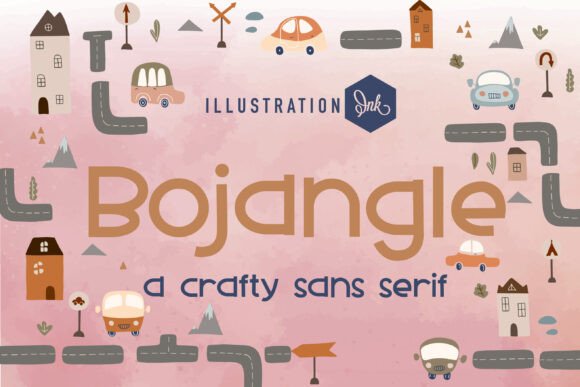
Bojangle Font: A Hand-Crafted Sans Serif for Unique Designs
The Bojangle Font is a unique, hand-crafted sans serif font that has gained popularity among designers and artists. This font is characterized by its squatty and wide letterforms, making it perfect for a variety of design projects. In this article, we’ll explore the features of the Bojangle Font, its uses, and the benefits of using hand-crafted fonts in your designs.
What is Bojangle Font?
The Bojangle Font is a hand-crafted sans serif font that is designed to look like it was written by hand. It features squatty and wide letterforms, giving it a unique and playful appearance. The font comes in two versions: a regular version and a light version, allowing designers to choose the one that best suits their needs.
Hand-crafted fonts like Bojangle are becoming increasingly popular among designers, as they offer a unique and personalized touch to designs. These fonts are often used for invitations, greeting cards, and other items where a personal touch is desired.
What are Hand-Crafted Fonts?
Hand-crafted fonts, also known as handwritten fonts, are fonts that are designed to look like they were written by hand. These fonts can be either formal or informal, and they can be used for a variety of purposes. Hand-crafted fonts are often used for creative projects, such as:
- Invitations and greeting cards
- Logos and branding materials
- Posters and flyers
- Social media graphics
- Packaging and product labels
Hand-crafted fonts offer a unique and personalized touch to designs, making them stand out from the crowd. They can add a touch of warmth and personality to a design, making it more engaging and memorable.
Benefits of Using Hand-Crafted Fonts
There are several benefits to using hand-crafted fonts in your designs. Some of the benefits include:
- Uniqueness: Hand-crafted fonts offer a unique and personalized touch to designs, making them stand out from the crowd.
- Warmth and personality: Hand-crafted fonts can add a touch of warmth and personality to a design, making it more engaging and memorable.
- Flexibility: Hand-crafted fonts can be used for a variety of purposes, from formal to informal designs.
- Creativity: Hand-crafted fonts offer a wide range of creative possibilities, allowing designers to experiment with different styles and techniques.
Using Bojangle Font in Your Designs
The Bojangle Font is a versatile font that can be used for a variety of design projects. Here are some ideas for using Bojangle Font:
- Invitations and greeting cards: Bojangle Font is perfect for creating unique and personalized invitations and greeting cards.
- Logos and branding materials: Bojangle Font can be used to create a unique and memorable logo or branding materials.
- Posters and flyers: Bojangle Font can be used to create eye-catching posters and flyers.
- Social media graphics: Bojangle Font can be used to create engaging and memorable social media graphics.
Tips for Using Hand-Crafted Fonts
Here are some tips for using hand-crafted fonts in your designs:
- Choose the right font: Choose a hand-crafted font that fits the tone and style of your design.
- Use it sparingly: Use hand-crafted fonts sparingly to avoid overwhelming the design.
- Pair it with other fonts: Pair hand-crafted fonts with other fonts to create visual interest and hierarchy.
- Experiment with different styles: Experiment with different styles and techniques to find the one that works best for your design.
The Bojangle Font is a unique and versatile hand-crafted sans serif font that can add a touch of warmth and personality to your designs. Hand-crafted fonts like Bojangle offer a wide range of creative possibilities, allowing designers to experiment with different styles and techniques. By following the tips outlined in this article, you can use hand-crafted fonts effectively in your designs and create unique and memorable visual experiences.